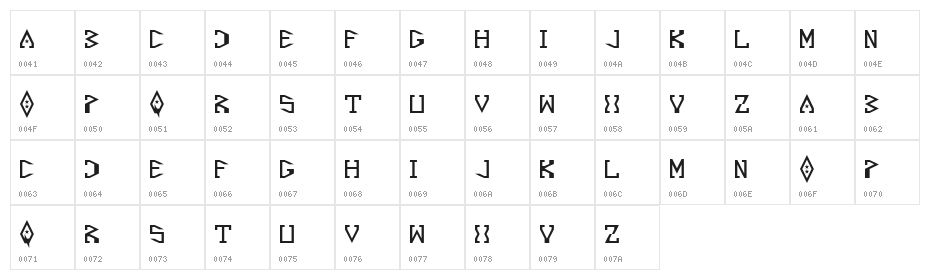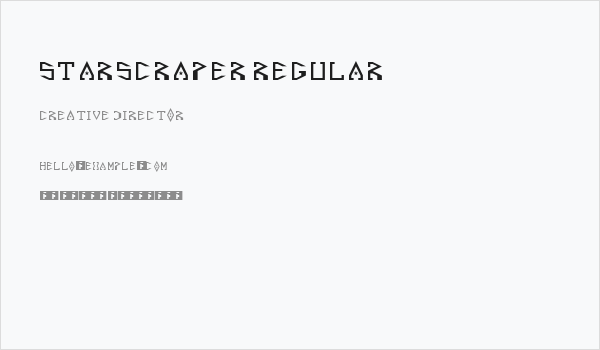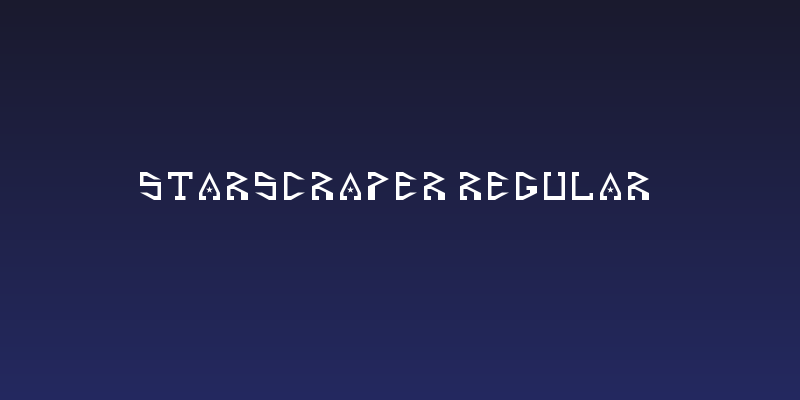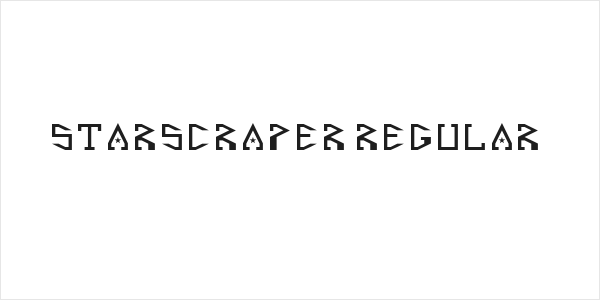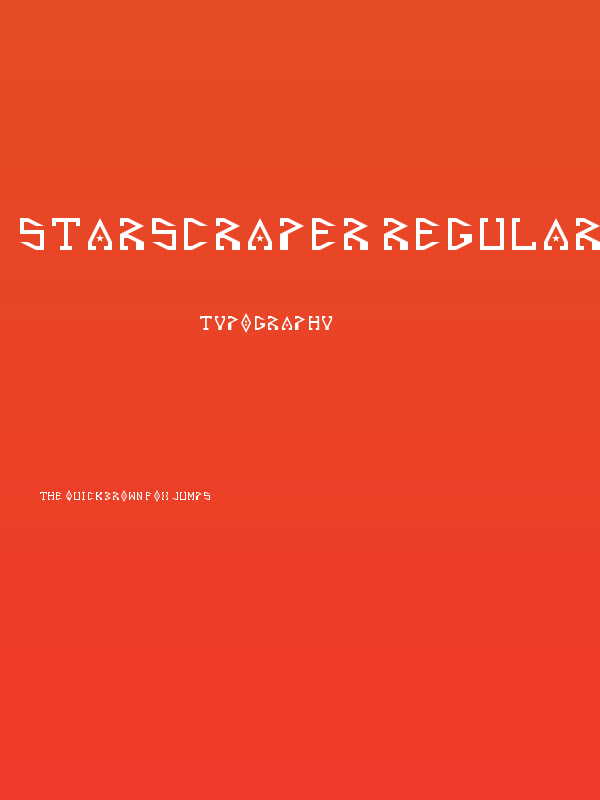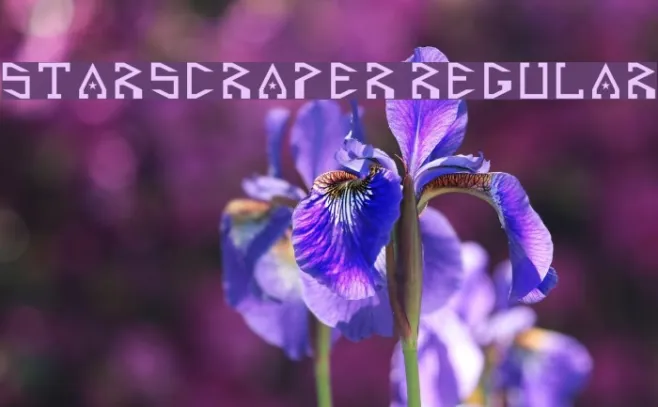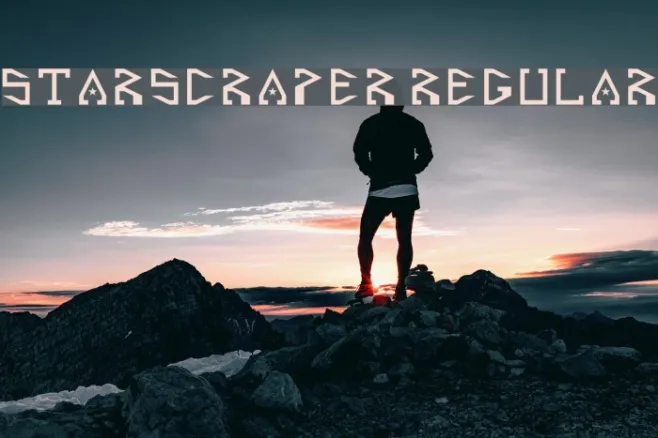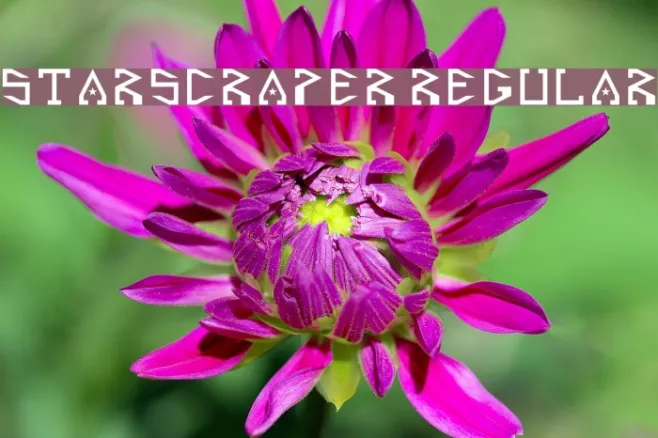
Starscraper Regular Font
Starscraper Regular Description
This font features a bold and geometric design with sharp angles and unique cutouts, creating a futuristic and dynamic appearance. The characters are constructed with a consistent thickness, giving them a solid and robust feel. The inclusion of star-like motifs within certain letters adds an element of intrigue and creativity, making it stand out as a decorative typeface. The uppercase letters are particularly striking, with their angular forms and distinctive style. This font is well-suited for projects that require a modern and edgy look, such as sci-fi themed designs, video game titles, or branding for tech companies. Its boldness ensures that it captures attention, while the geometric shapes provide a sense of precision and innovation.
| Proposed Projects | Perfect for sci-fi themed projects, video game titles, tech branding, and modern posters. |